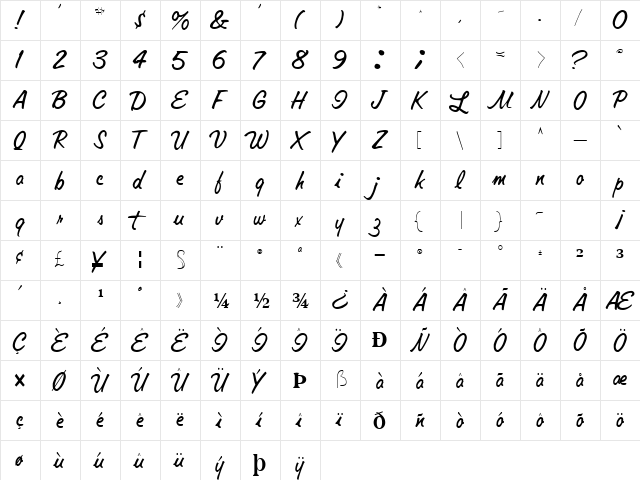
StandardBrushFont54 Regular
Design Context for StandardBrushFont54 Typeface
StandardBrushFont54 brings a calligraphic fluidity to the page — its connecting strokes and expressive curves give it an unmistakably human quality.
Font Pairing: Combine StandardBrushFont54 with a simple geometric sans for maximum contrast — the tension between flowing curves and clean structure is a classic typographic pairing.
Pro Tip: Pair StandardBrushFont54 with a clean sans-serif for supporting text. The contrast between fluid script and geometric structure creates an elegant typographic hierarchy.